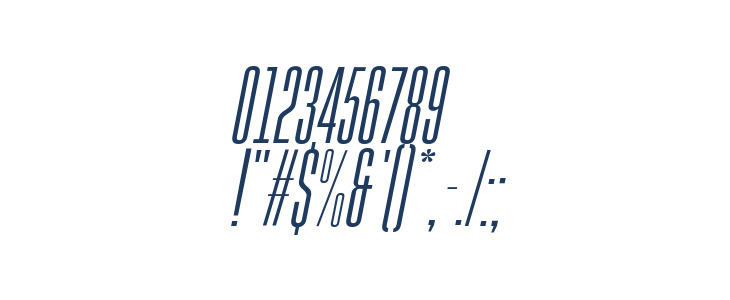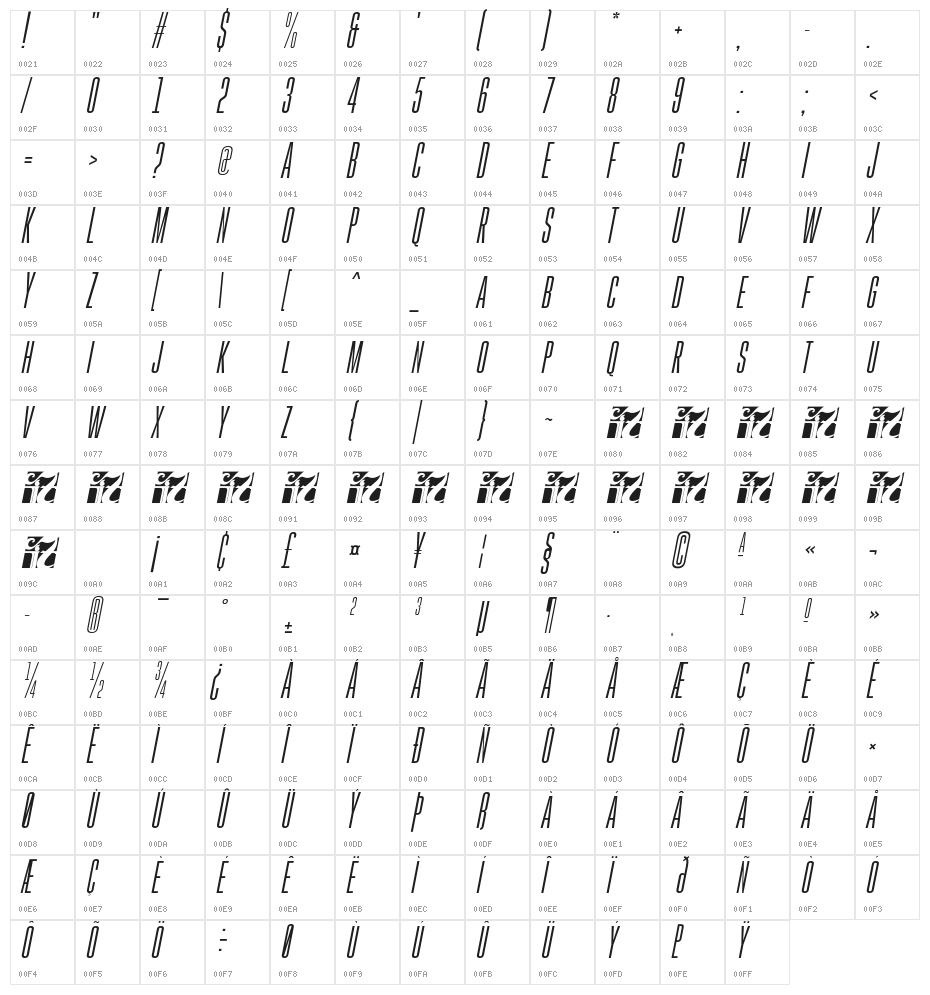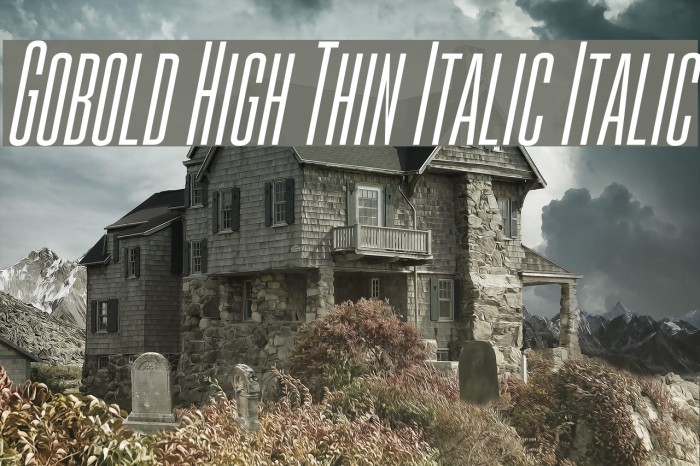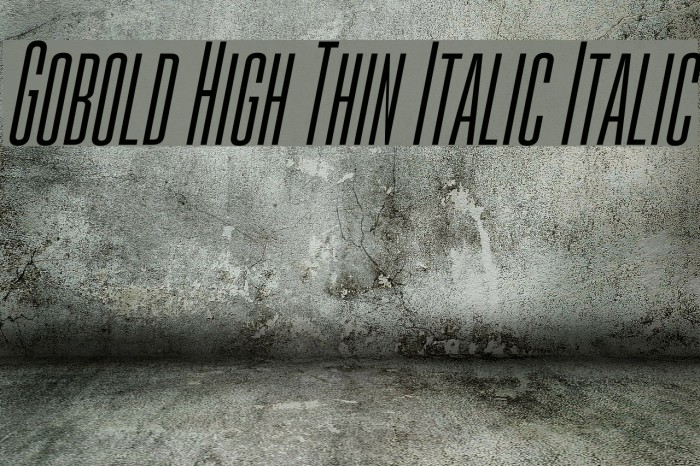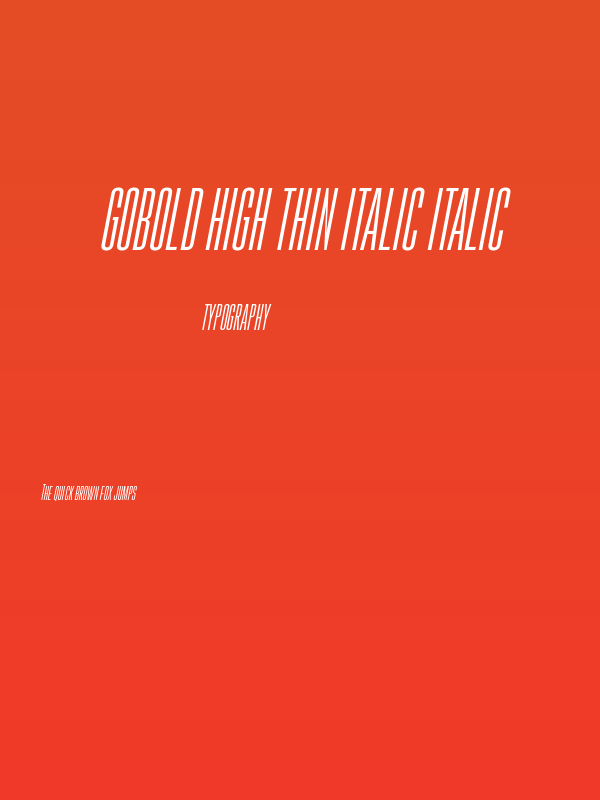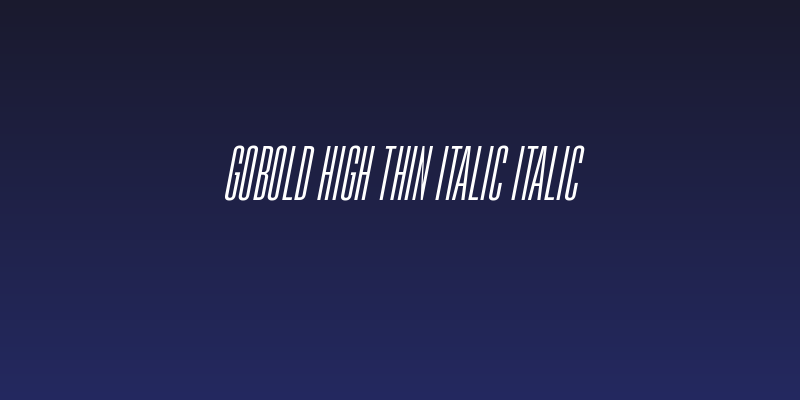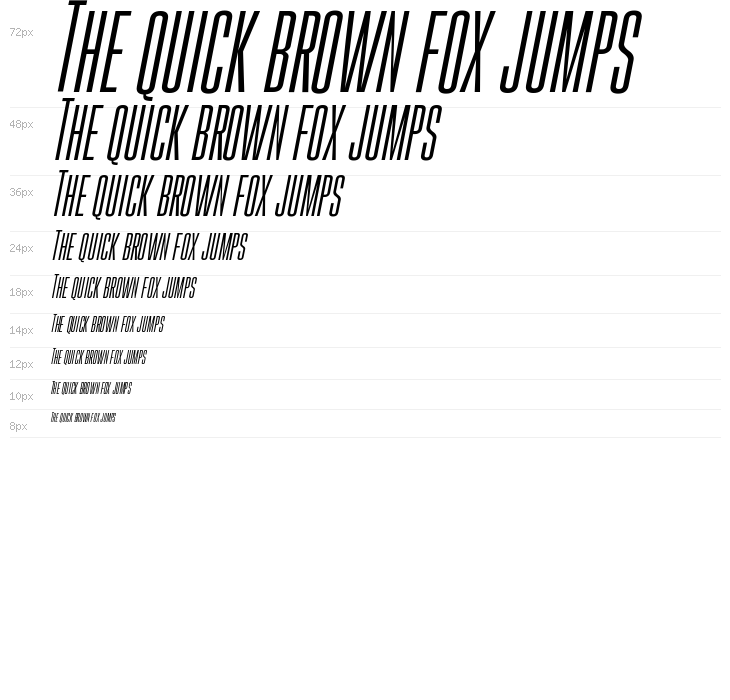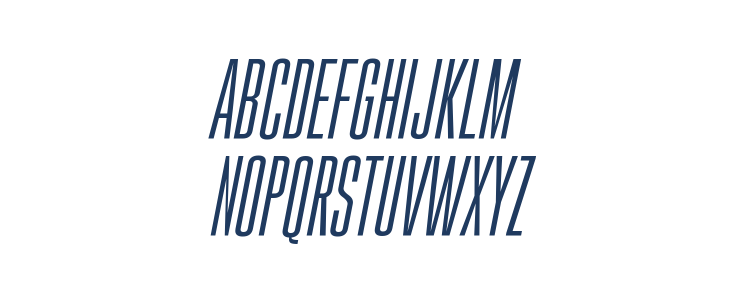
Gobold High Thin Italic Italic Font
Gobold High Thin Italic Italic Description
This font features a sleek, elongated design with a pronounced italic slant, giving it a dynamic and modern appearance. The characters are tall and narrow, contributing to a condensed width that enhances its contemporary style. The thin strokes maintain a consistent weight throughout, providing a uniform look that is both elegant and assertive. The high contrast between the vertical and horizontal elements adds to its striking visual appeal. This font is well-suited for projects that require a bold statement, such as headlines, posters, and branding materials. Its unique style can effectively capture attention while maintaining readability.
| Proposed Projects | Headlines, posters, branding materials, modern advertisements, and dynamic web design. |